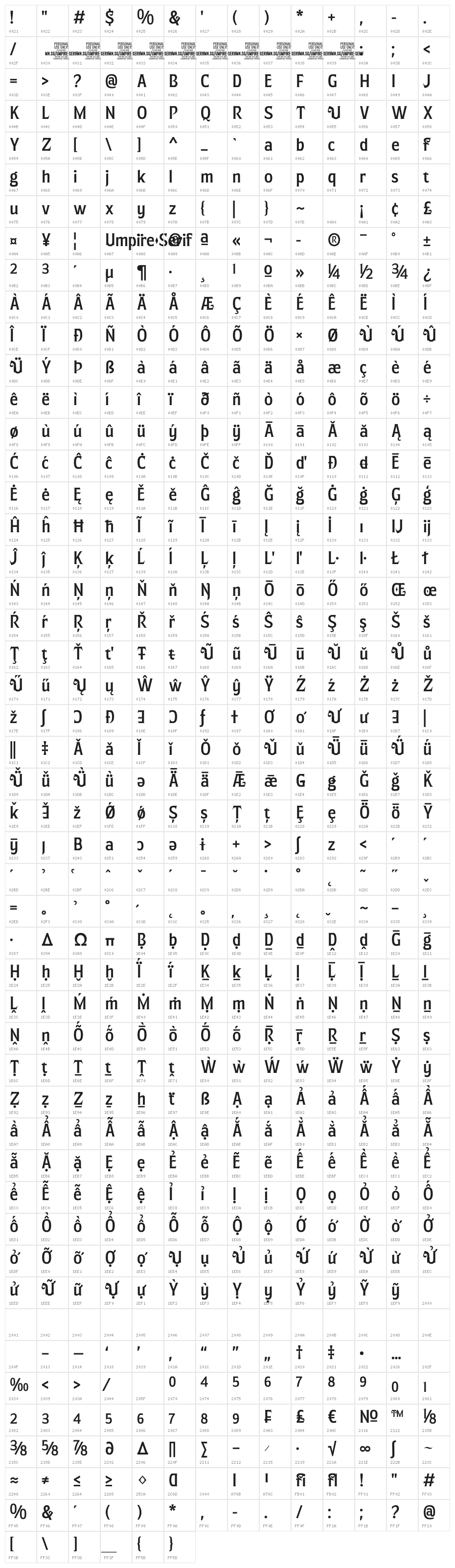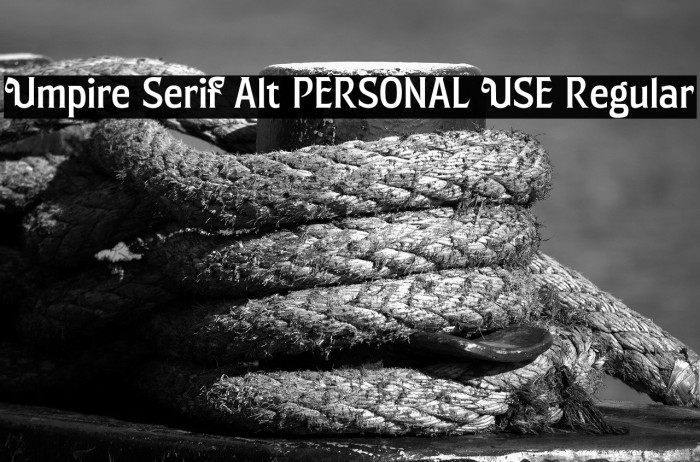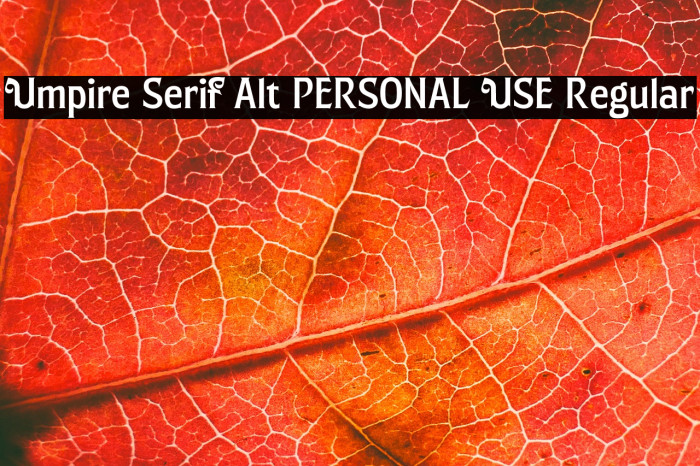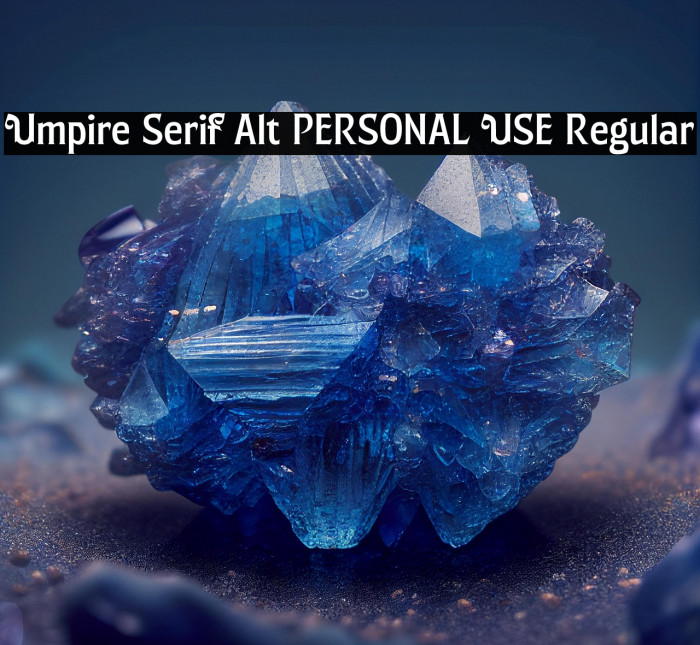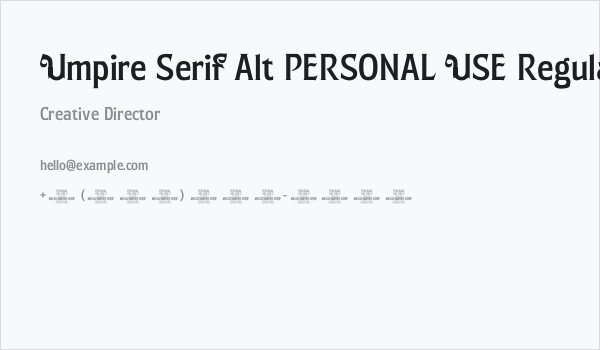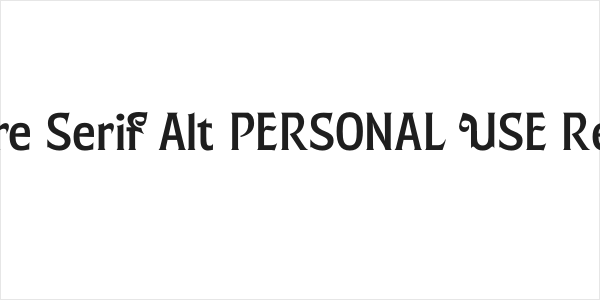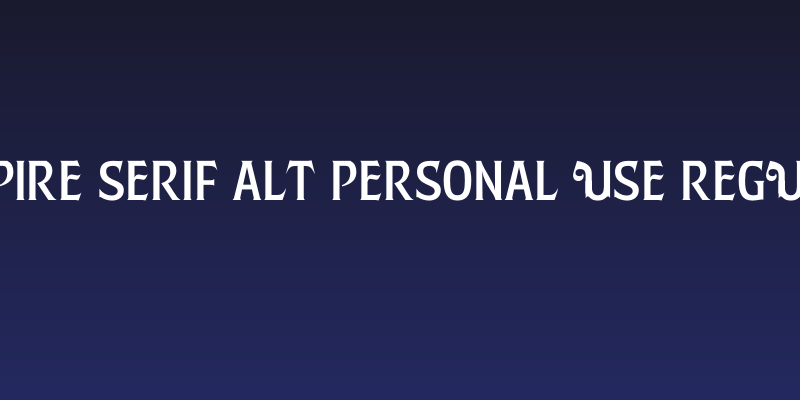
Umpire Serif Alt PERSONAL USE Regular Font
Umpire Serif Alt PERSONAL USE Regular Description
This font features a distinctive serif style with a modern twist, characterized by sharp, angular serifs and a strong vertical emphasis. The uppercase letters exhibit a bold presence, while the lowercase letters maintain a consistent and harmonious flow. The unique design of certain characters, such as the lowercase 'g' and 'f', adds an artistic flair, making it stand out. The numerals are clear and well-defined, ensuring readability. Special characters are crafted with the same attention to detail, providing a cohesive look across all glyphs. This font balances elegance with a contemporary edge, making it versatile for various design needs.
| Use Case | Headlines, Logos, Editorial Design |
| Proposed Projects | Ideal for branding, editorial design, and advertising where a modern yet classic look is desired. |